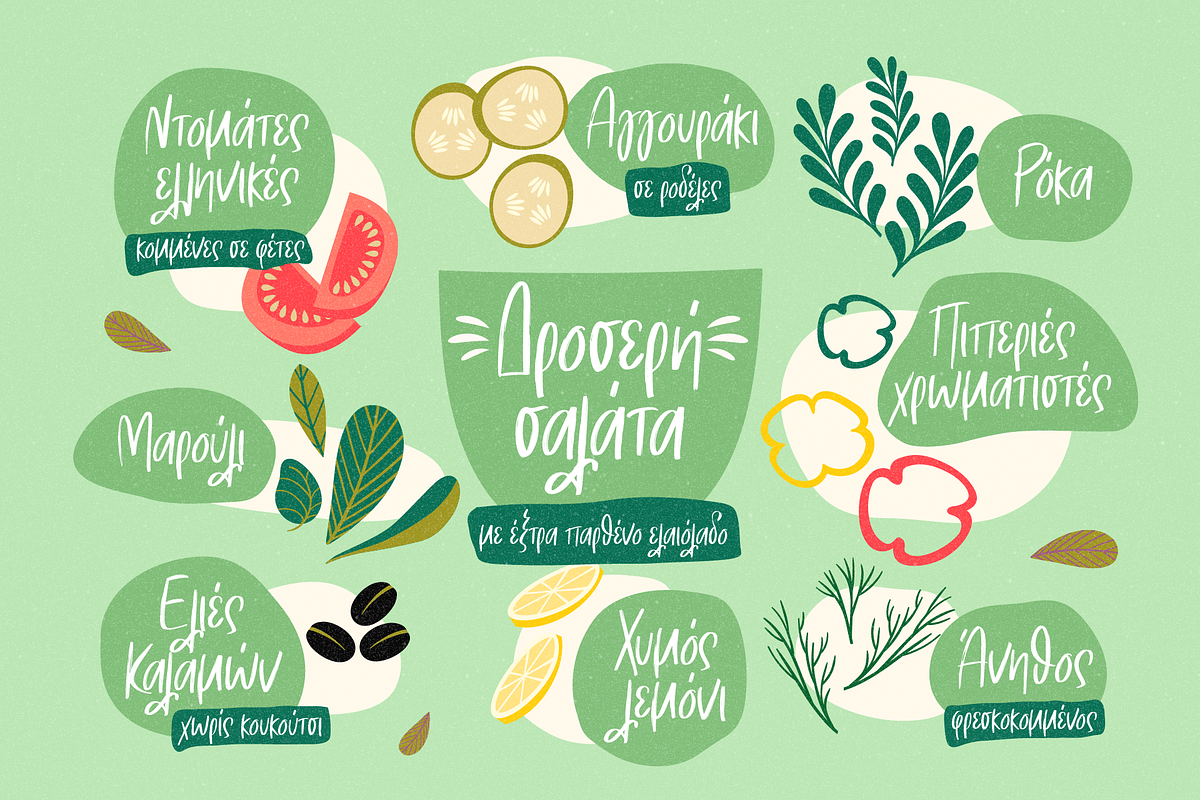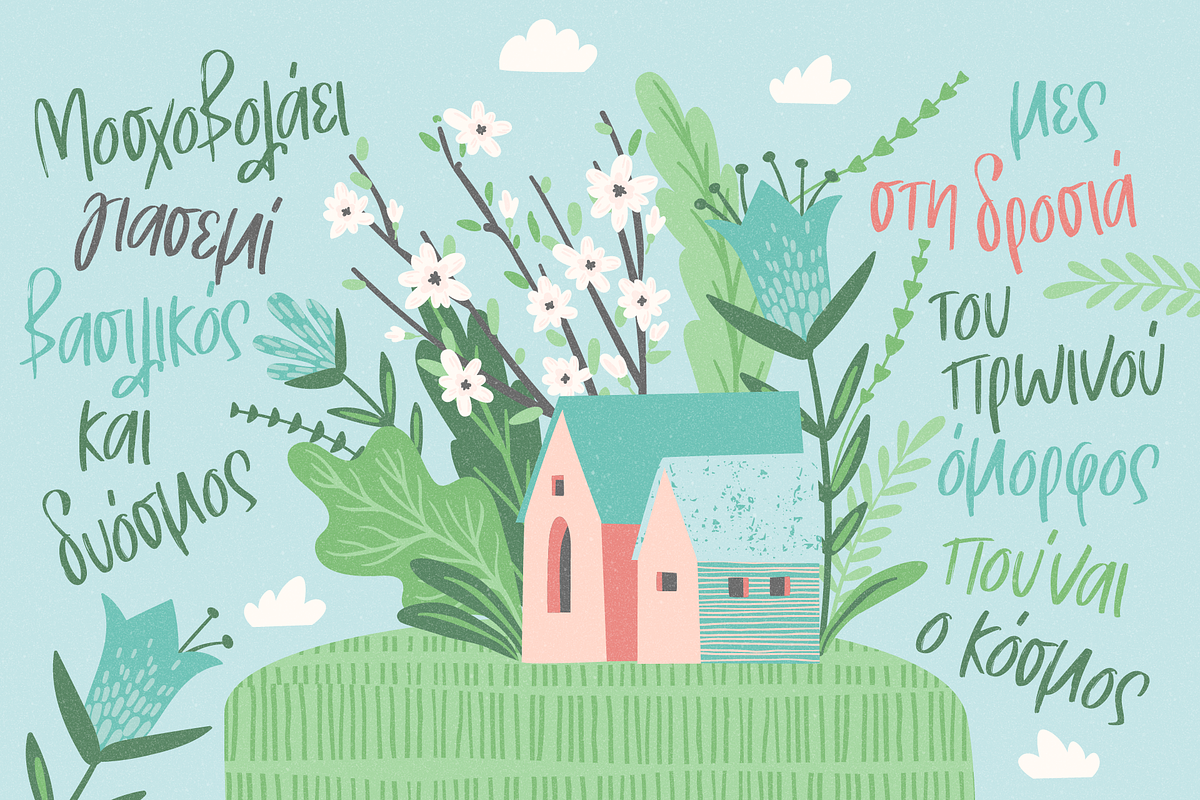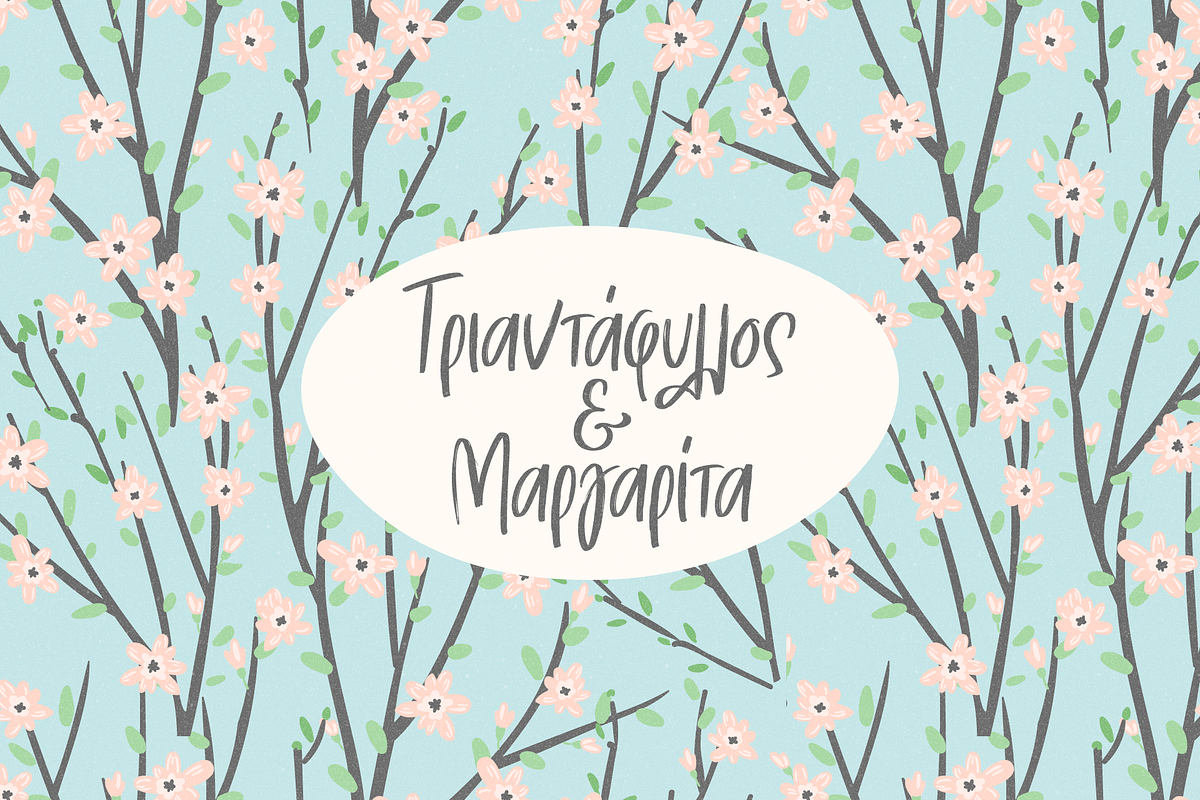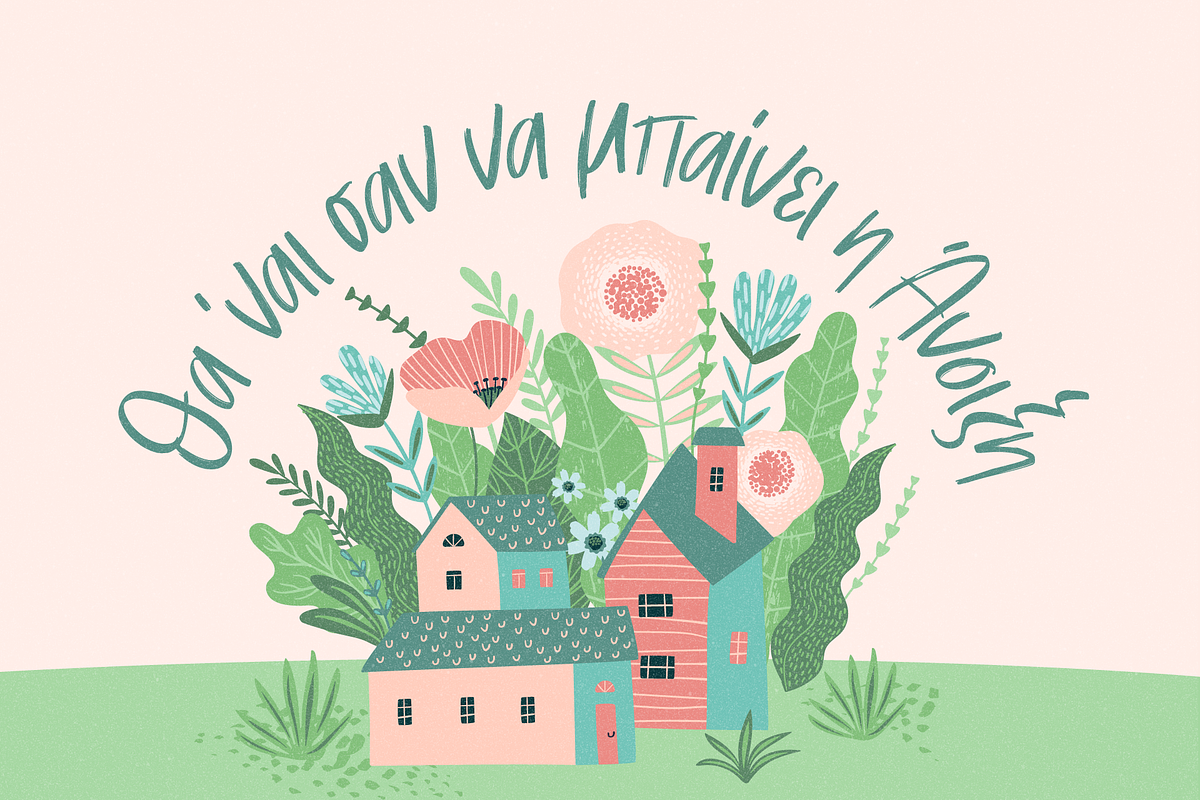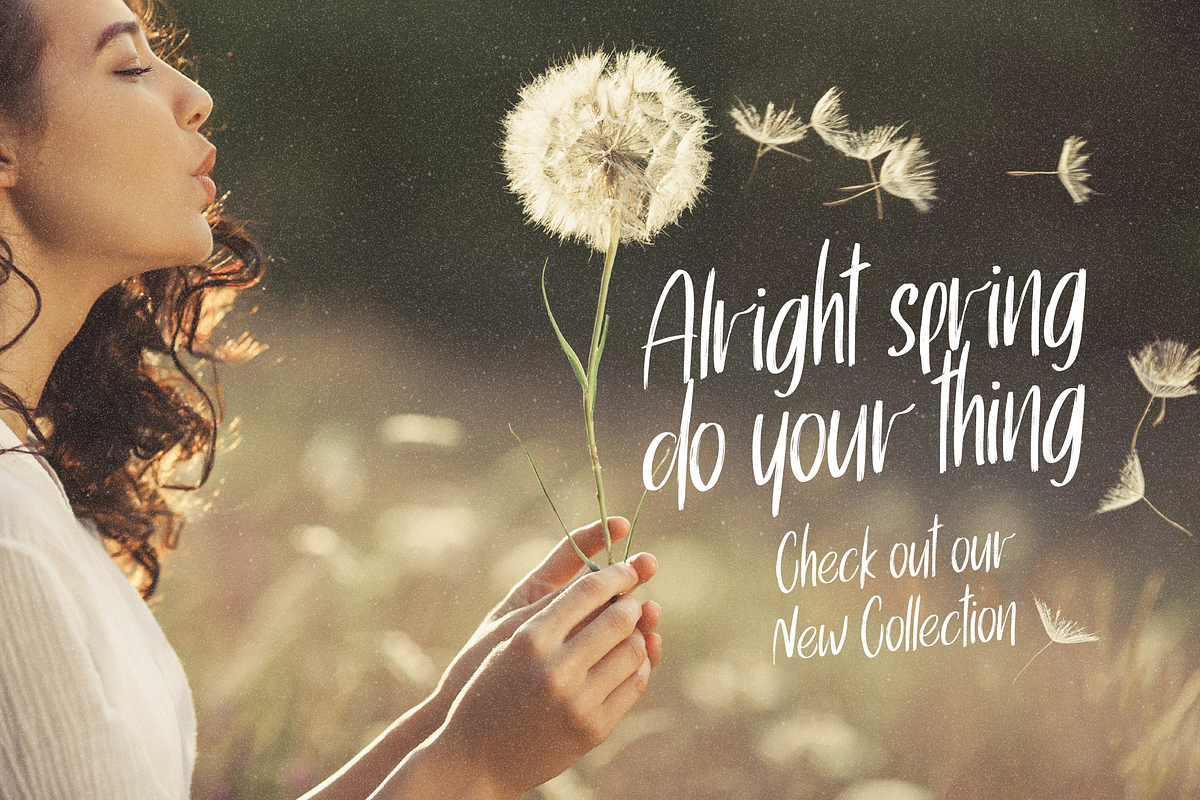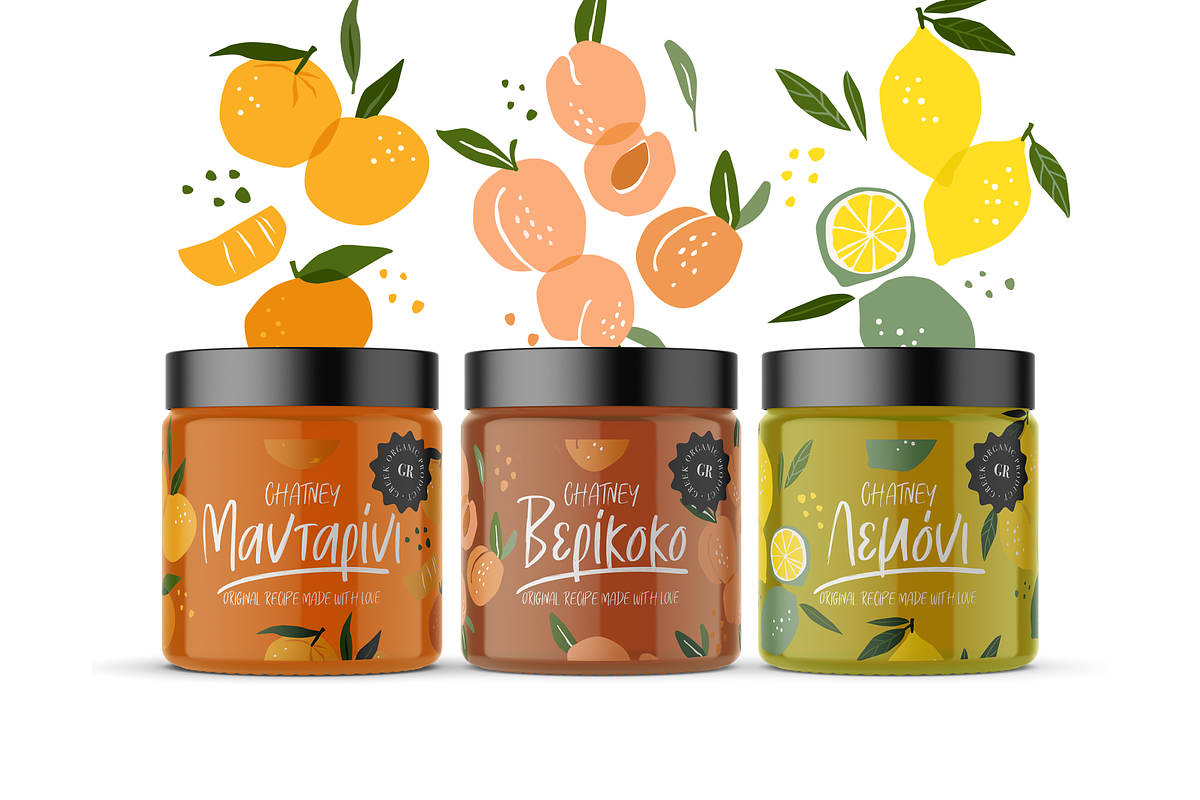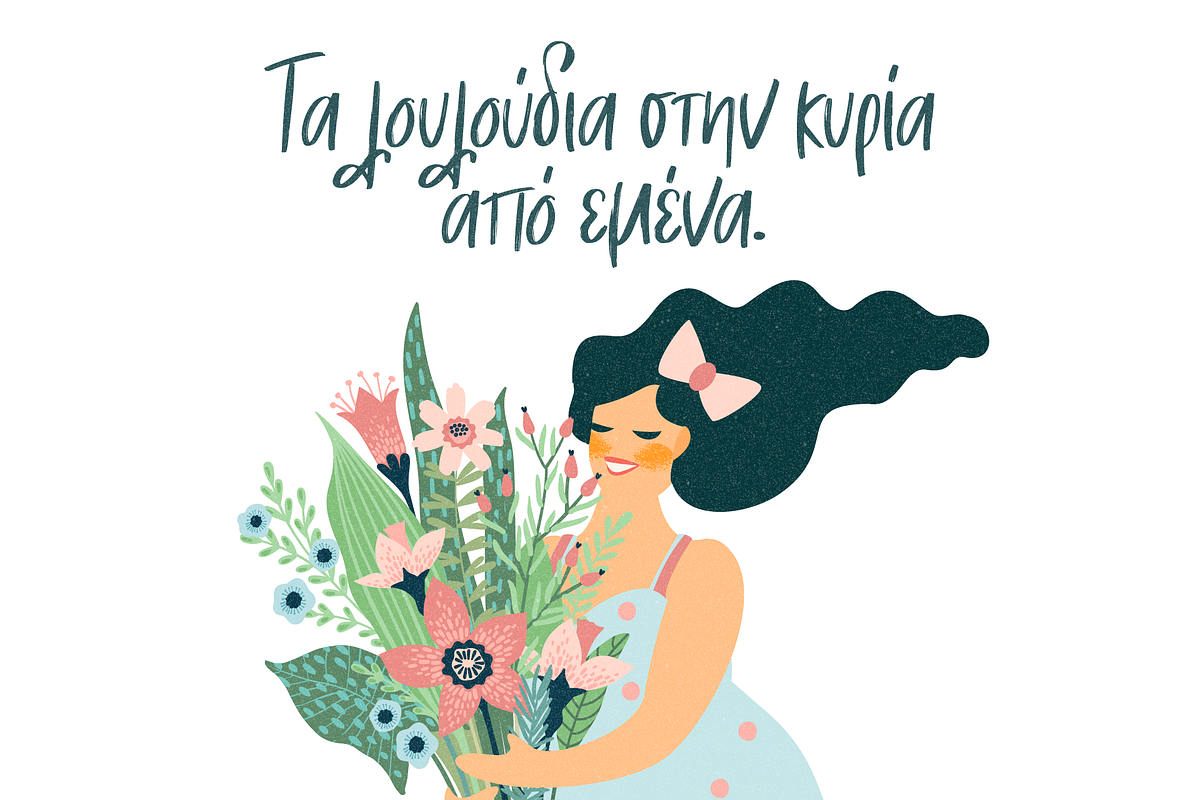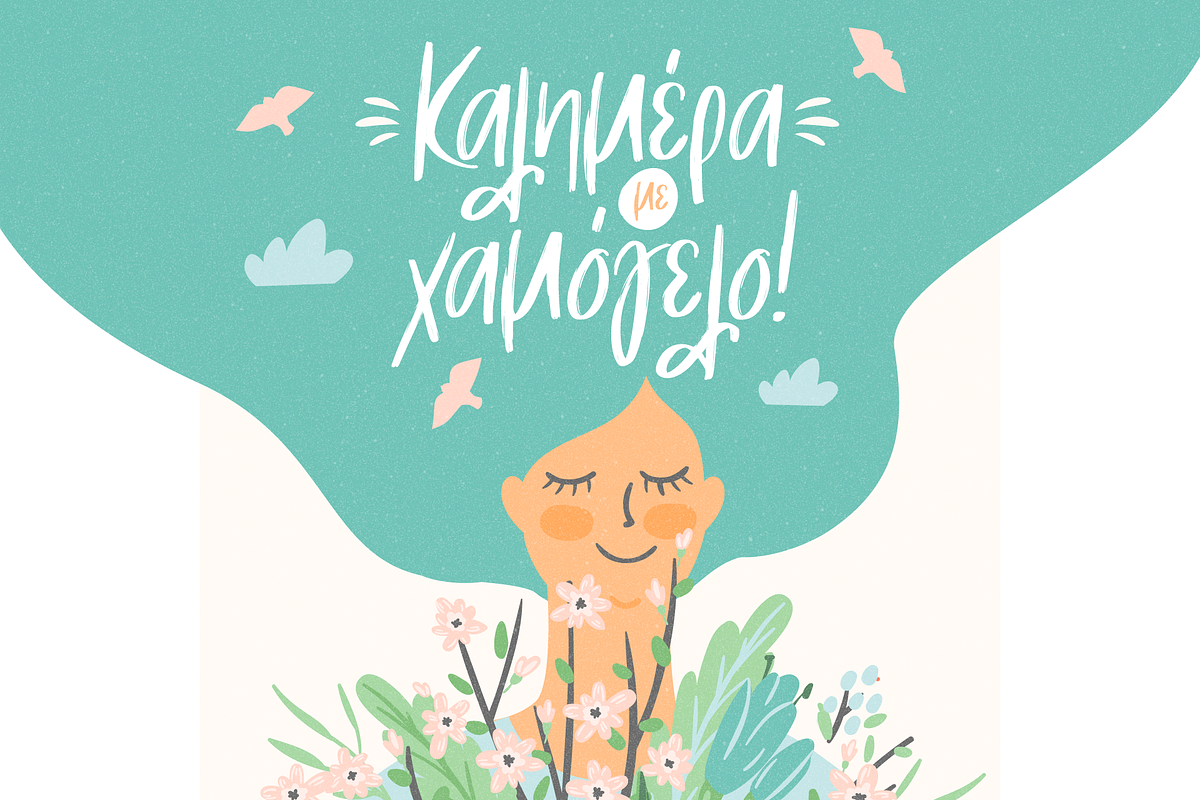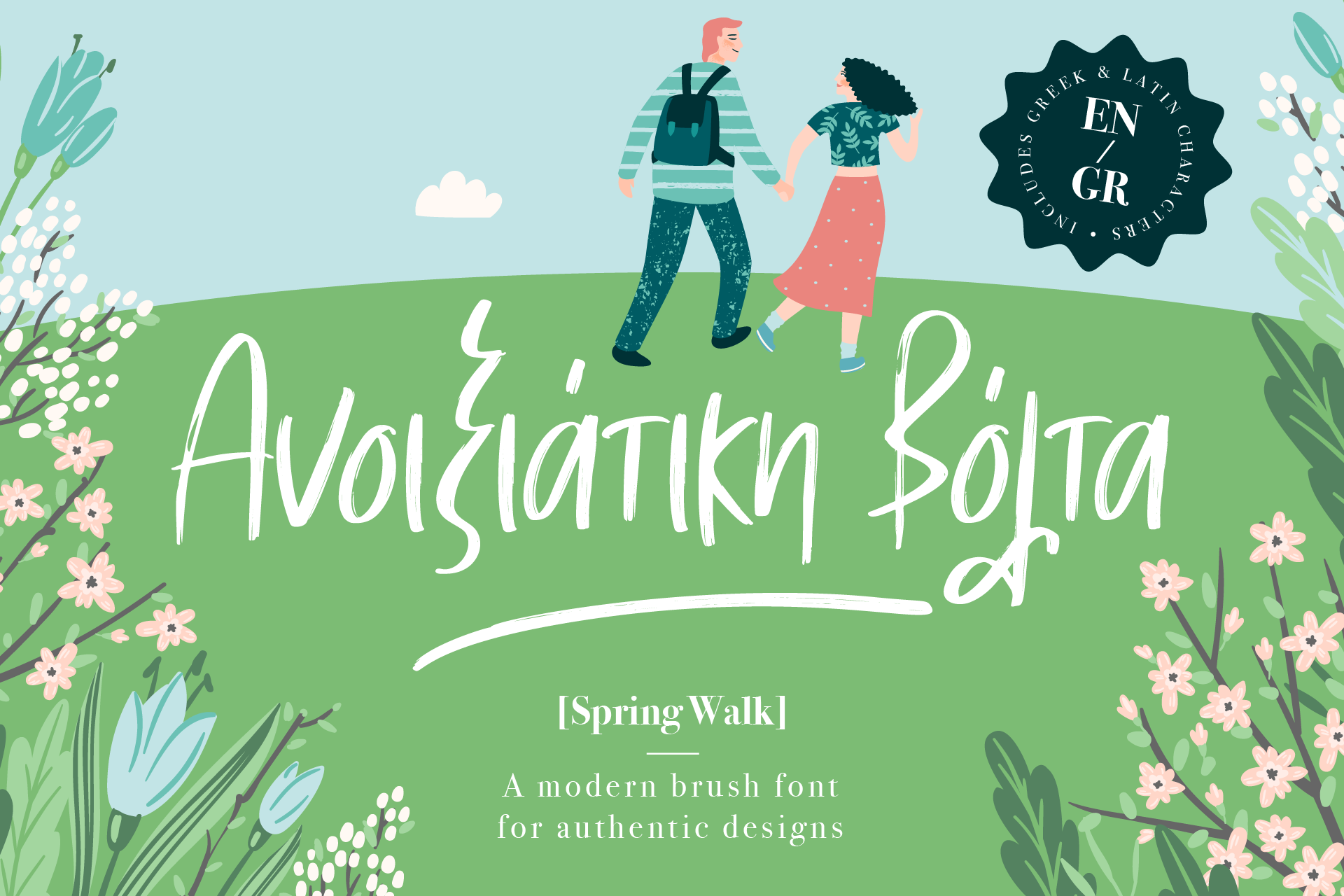
Spring Walk brush scrpit font
Say hello to Spring walk, a new hand painted brush script font, ready to deliver authentic messages. Spring walk is an ideal choice to create beautiful handwritten quotes, packaging designs, logos, social media, editorial and more. Spring walk contains lowercase & uppercase letters and comes with ligatures to make your design even better. Also you can add bonus swashes to your letters and make them pop even more. When it comes to Greek, Spring Walk include a full set of Greek uppercase & lowercase letters plus ligatures and swashes as well. Now your Greek typography is elevated and ready for success.